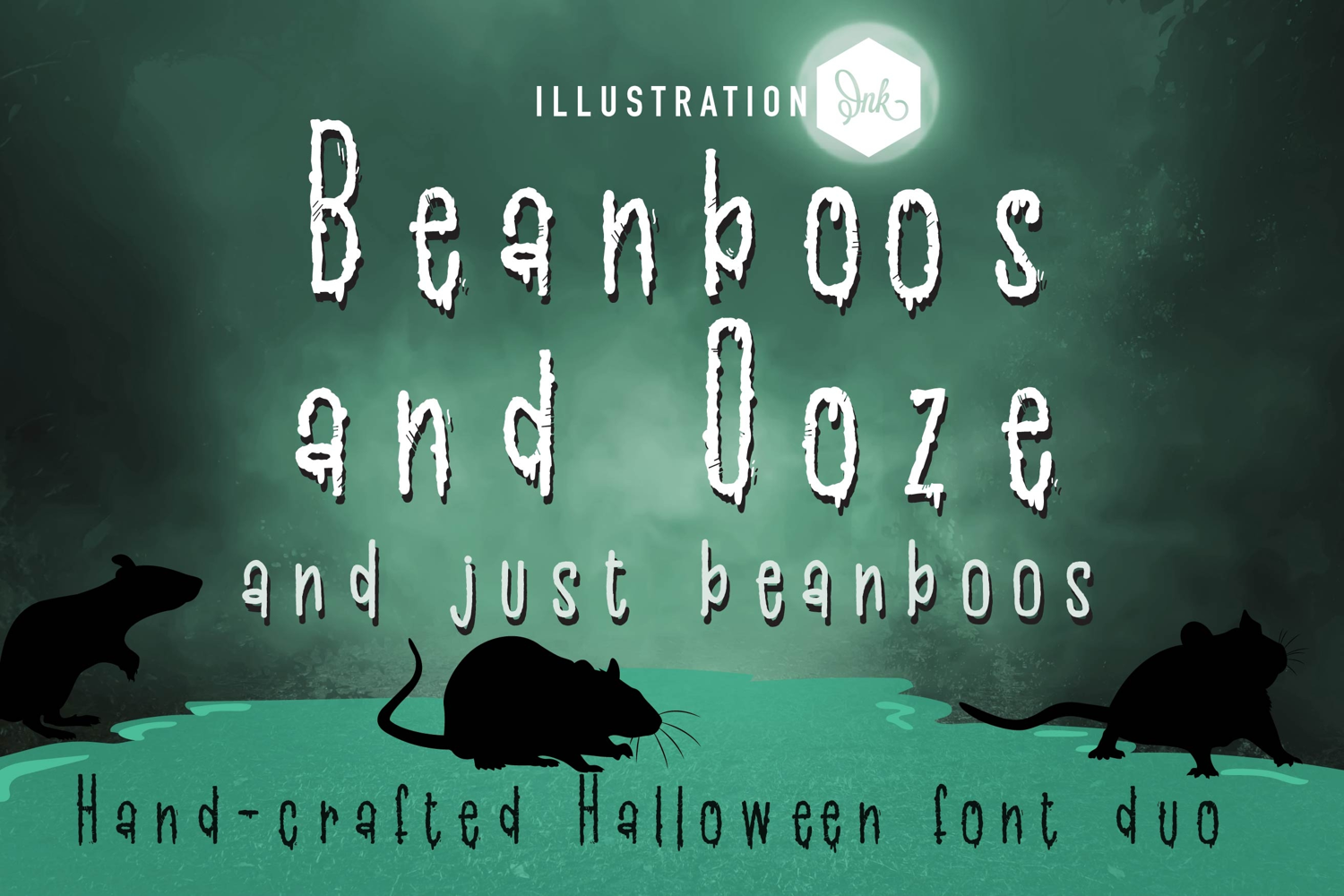
Beanboos and Ooze Font Duo
This hand-crafted font duo combines a scary, drippy, widely spaced, hand-printed font and it's more friendly, less-scary versions. With all family members combined of the two fonts, you get 15 fonts all together!